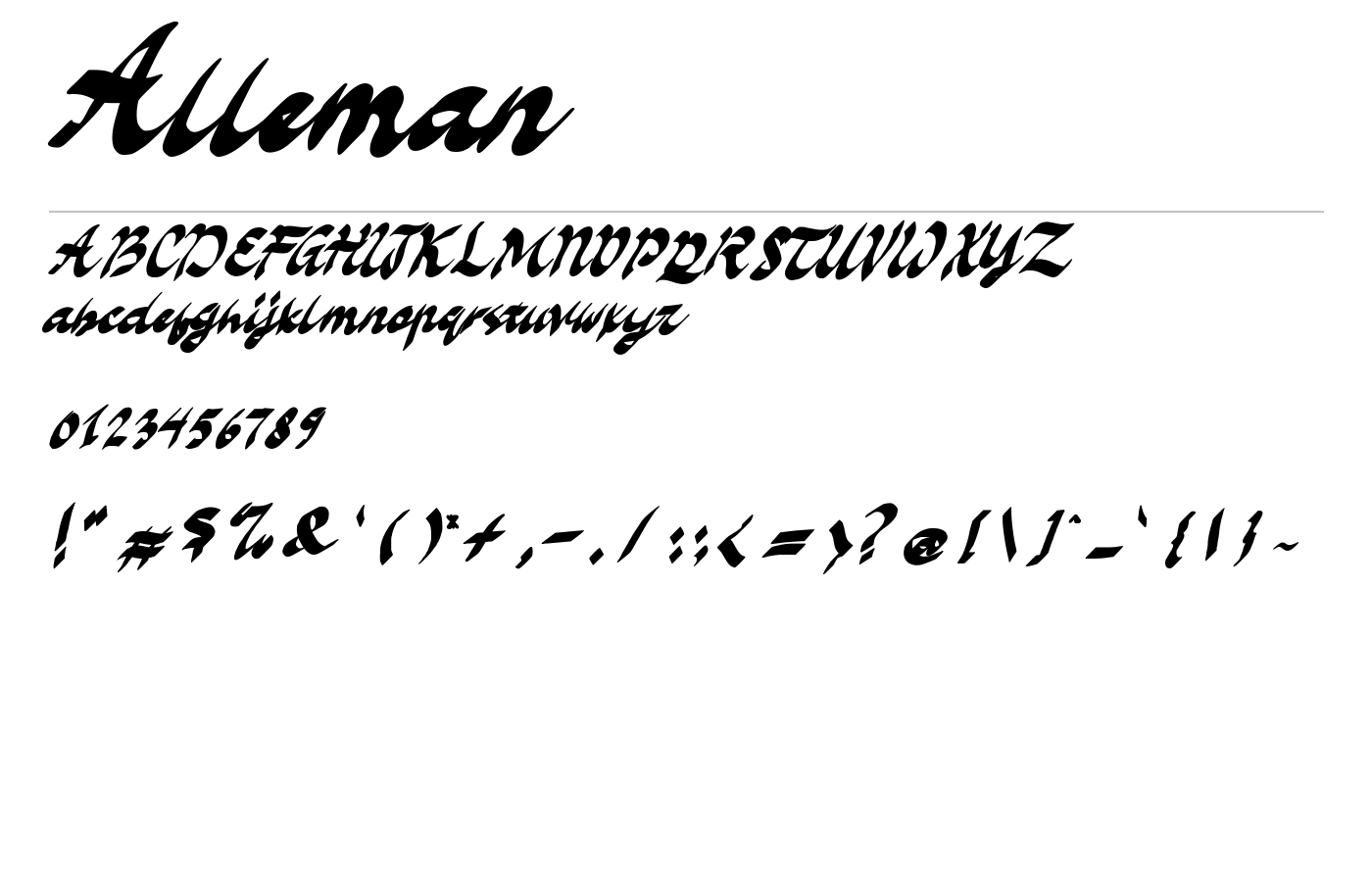
Alleman is a bold, italic script font with a calligraphic flair, featuring smooth, flowing letterforms that showcase both uppercase and lowercase characters with expressive strokes. Its thick and thin contrasts combined with dynamic curves give it an energetic, stylish, and somewhat vintage feel, perfect for eye-catching logos, fashion branding, and elegant invitations where a distinctive handwritten look is desired. This font works best in display settings where personality and flair are key, adding a creative and artistic touch to any design.
Alleman Font
About Alleman Font
| Font family | Alleman Font |
| Designer | Designed by Em Ali, Designer From Mozyen Studio |